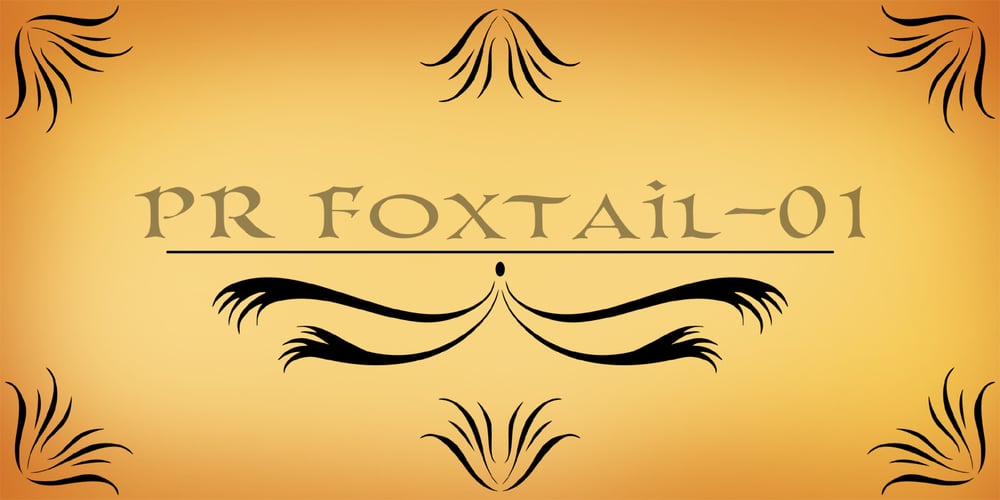
PR Foxtail 01
PR Foxtail 01 font
PR Foxtail 01 Font Family was designed by Peter Rempel and published by PR Fonts. PR Foxtail 01 contains 1 styles and family package options. The bushy weed commonly known as foxtail provides the inspiration for this set of ornaments, and reveals its connection to the prairies. The appearance has an affinity to cowboy themed work and would combine well with wood type decorative text.